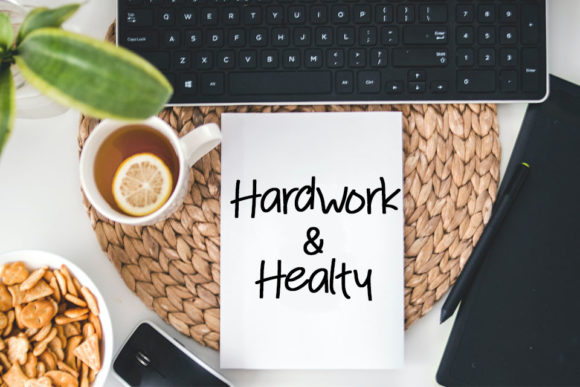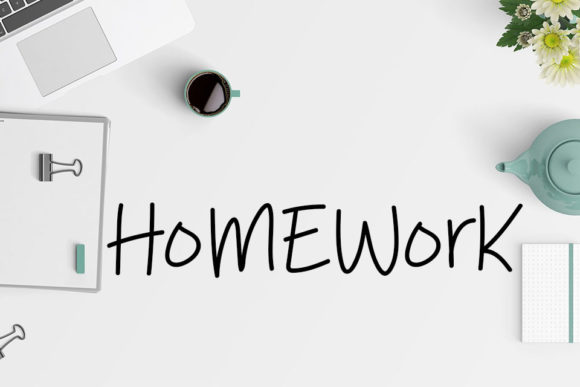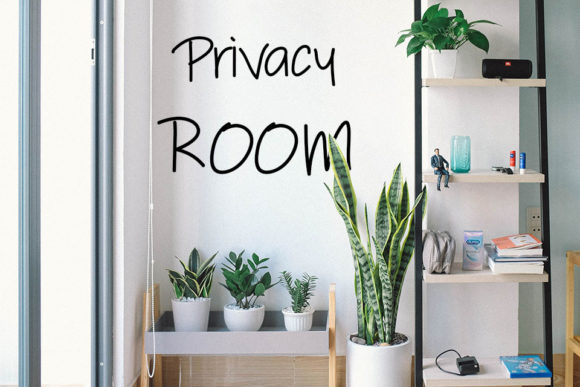
Master Class Font
About Master Class Font
Master Class is a casual and friendly handwritten font. It will look stunning on any poster, flyer or print.